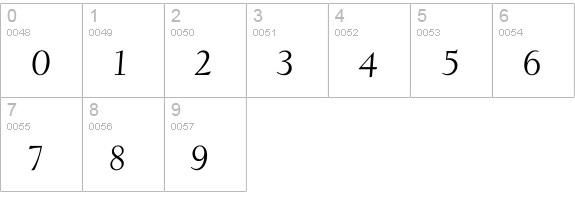
DeepdeneL-Italic Font Details
DeepdeneL-Italic is a distinctive, italic variant in the DeepdeneL typeface family \xE2\x80\x94 well suited to design and typography projects.
Introducing DeepdeneL-Italic font, a sleek and elegant typeface designed to add a touch of sophistication to your projects. This italic font style exudes a sense of modernity and class, making it perfect for use in a wide range of design applications. With its graceful curves and refined details, DeepdeneL-Italic font brings a sense of style and elegance to any text. What's even better is that DeepdeneL-Italic font is available for free download at FontsMarket.com. That's right, you can easily access this stunning font without any cost, making it a fantastic option for designers looking to elevate their work without breaking the bank. So why wait? Enhance your designs with the timeless charm of DeepdeneL-Italic font today!